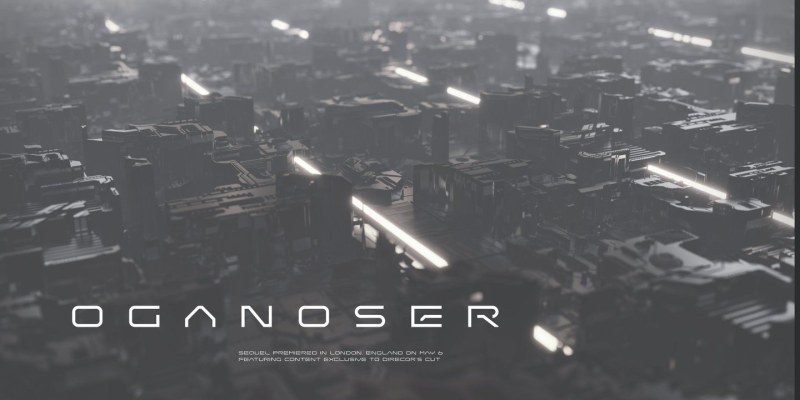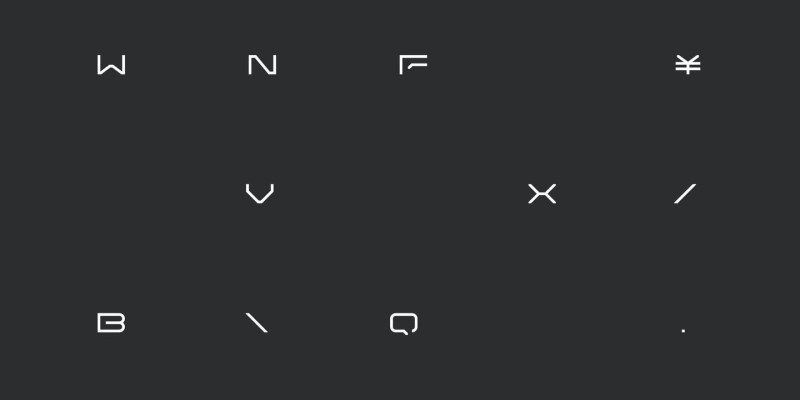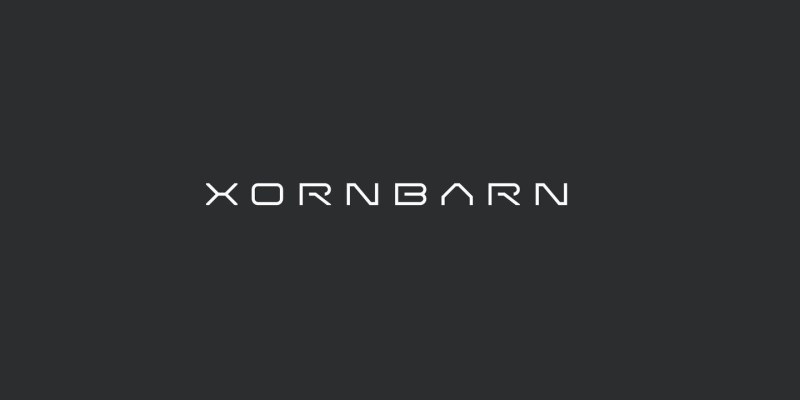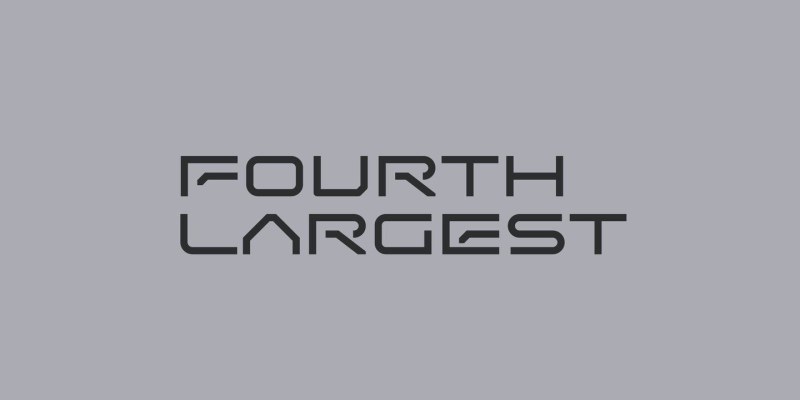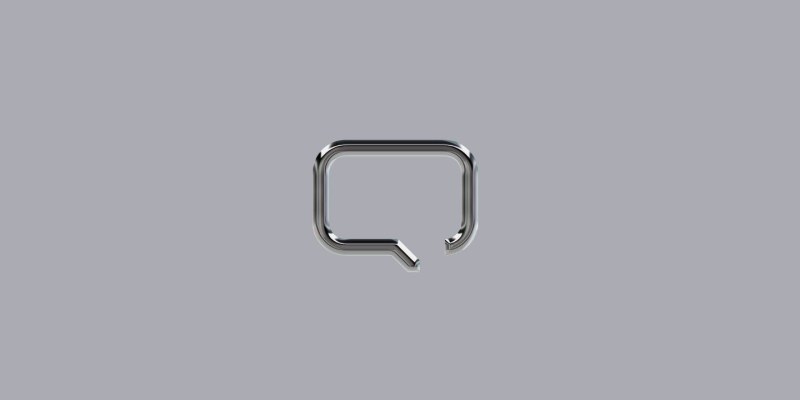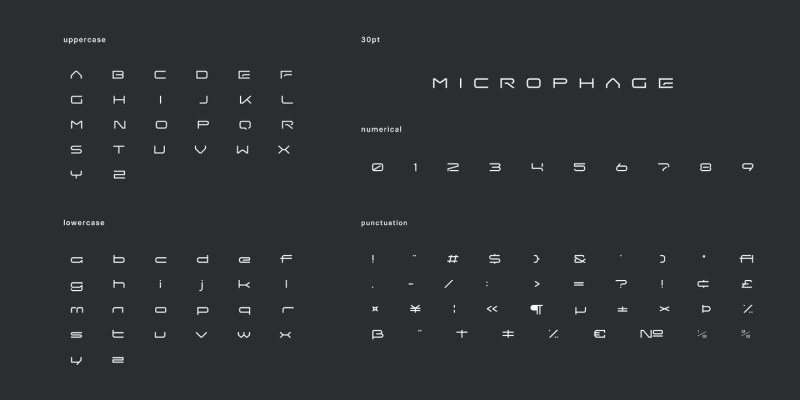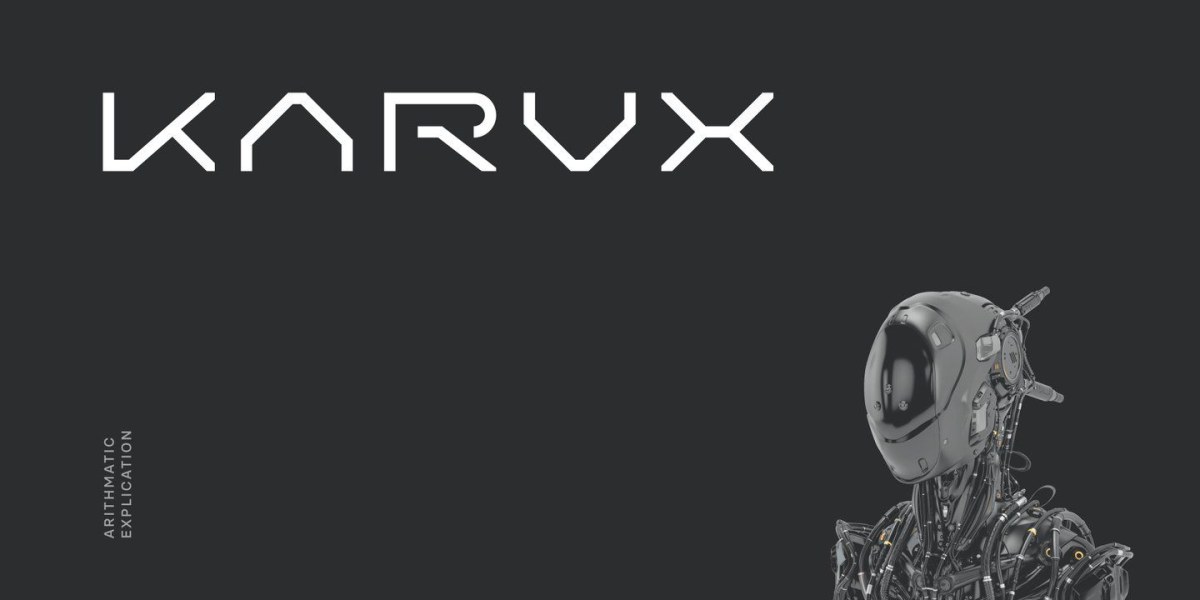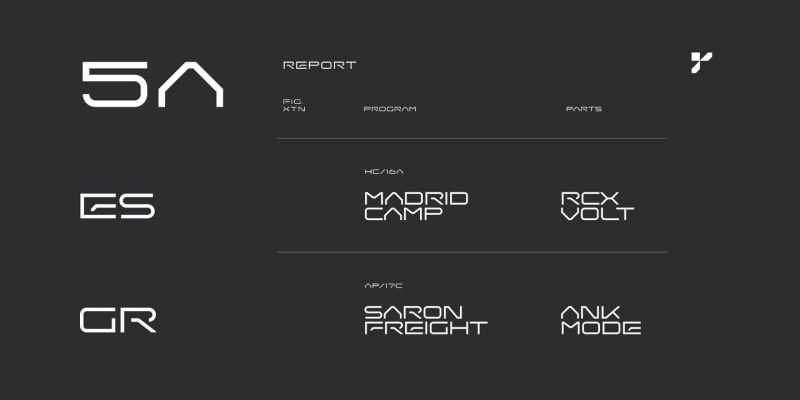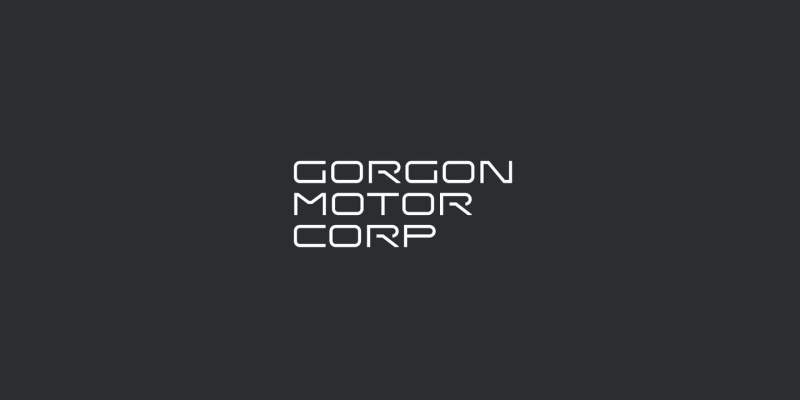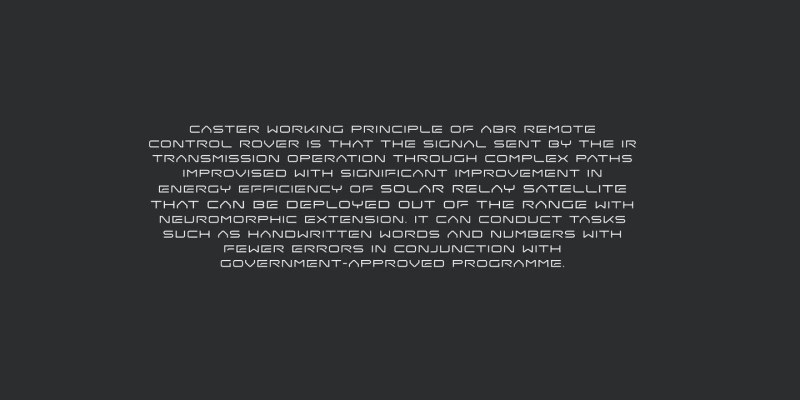
Karvx Font Family
Karvx is an arithmetic explication tech sans apt for headline, editorial, branding, packaging, printed materials and typographic applications. 200+ glyphs with ligatures and fractions.
Where Karvx Font Family works best
Complete brand systems
With multiple weights, Karvx Font Family can carry a whole identity — logo, headings, body copy and captions — consistently across print and web.
Websites & apps
Families let you set hierarchy with weight instead of switching typefaces, which keeps interfaces fast and coherent.
Print collateral
Brochures, catalogues and business cards benefit from a family that covers display and text sizes.
What is Karvx Font Family good for?